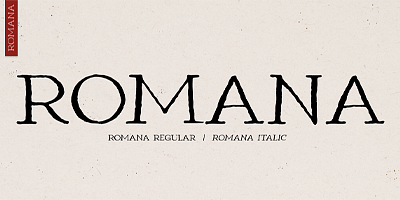
Romana Font Free Download
Romana Font Free Download is a classic and elegant serif typeface known for its high contrast, refined curves, and stately presence. Inspired by traditional Roman letterforms, this font is ideal for book titles, editorial layouts, formal invitations, luxury branding, and any design that demands timeless sophistication and readability.
Romana’s tall verticals and sharp serifs make it especially effective in headlines and display text, while still maintaining clarity in smaller sizes. It works seamlessly with design platforms like Adobe InDesign, Illustrator, Figma, and Canva, offering versatility for both digital and print media.